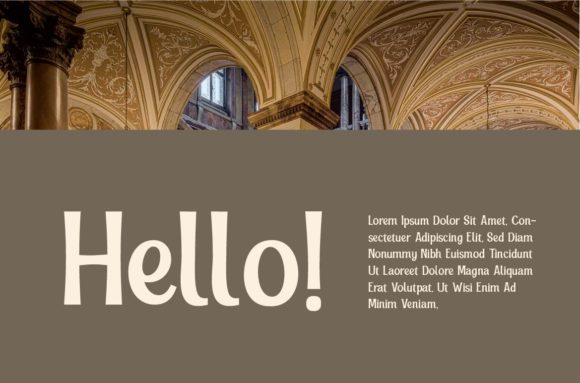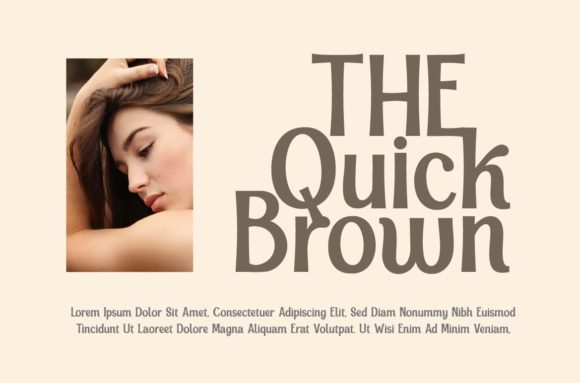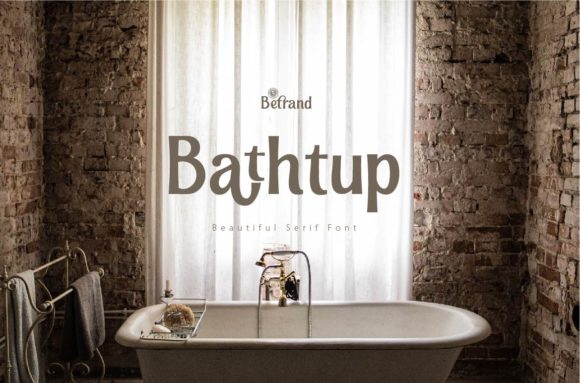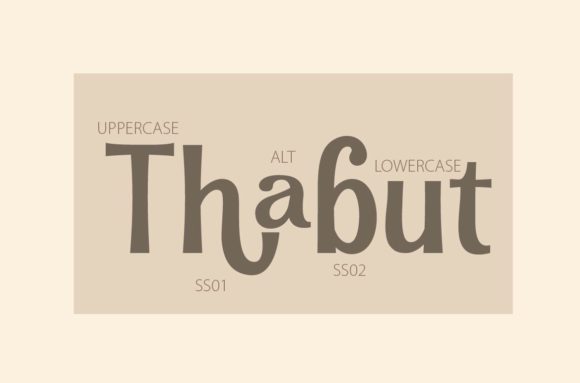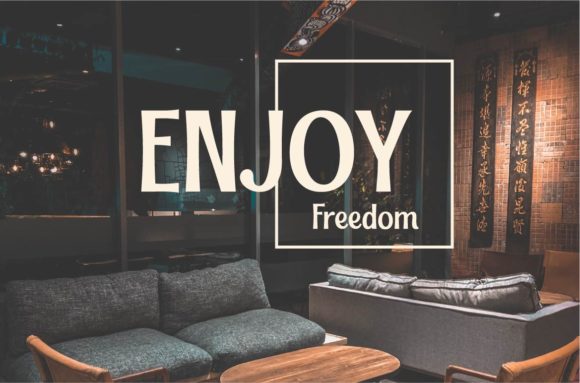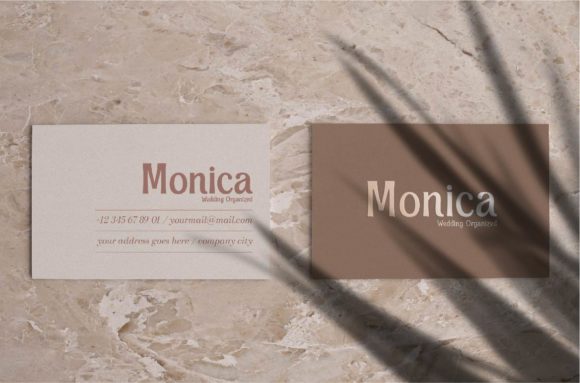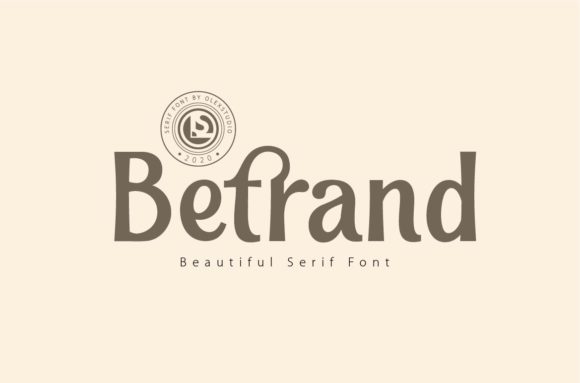
Discover the Elegance of Betrand Font: Elevate Your Designs with Versatility
Are you on the hunt for a font that exudes elegance, sophistication, and uniqueness? Look no further than Betrand Font. This stunning display font is making waves in the design community, and for good reason. Its incredibly versatile style makes it the perfect choice for a wide range of projects, from wedding invitations and stationery to social media posts and more.
The Charm of Betrand Font
Betrand Font is an elegant and unique display font that has captured the hearts of designers and crafters alike. Its charm lies in its ability to add a touch of sophistication to any design. Whether you’re creating a romantic wedding invitation or a stunning piece of stationery, Betrand Font is sure to impress. Its versatility is unmatched, making it a valuable addition to any designer’s toolkit.
Endless Possibilities with Betrand Font
One of the best things about Betrand Font is its incredible versatility. This font can be used in a variety of contexts, including:
- Wedding Invitations: Create gorgeous wedding invitations that set the tone for the big day. Betrand Font’s elegant style is perfect for formal or semi-formal weddings.
- Stationery: Add a touch of sophistication to your stationery with Betrand Font. From letterheads to greeting cards, this font is sure to impress.
- Social Media Posts: Make your social media posts stand out with Betrand Font. Its unique style is sure to grab attention and leave a lasting impression.
- Signage: Use Betrand Font to create stunning signage for events, businesses, or personal projects.
- Branding: Incorporate Betrand Font into your brand identity to add a touch of elegance and sophistication.
Why Designers and Crafters Love Betrand Font
So, why have designers and crafters fallen in love with Betrand Font? Here are just a few reasons:
- Unique Style: Betrand Font’s unique style sets it apart from other fonts on the market. Its elegant and sophisticated design makes it perfect for a wide range of projects.
- Versatility: As mentioned earlier, Betrand Font is incredibly versatile. It can be used in a variety of contexts, making it a valuable addition to any designer’s toolkit.
- Easy to Read: Despite its elegant style, Betrand Font is easy to read, making it perfect for body text or headings.
- High-Quality: Betrand Font is a high-quality font that is designed to deliver exceptional results.
Tips for Using Betrand Font
To get the most out of Betrand Font, here are a few tips to keep in mind:
- Use it Sparingly: Betrand Font is a statement font, so use it sparingly to make a maximum impact.
- Experiment with Colors: Betrand Font looks stunning in a variety of colors, so don’t be afraid to experiment and find the perfect hue for your design.
- Pair it with Other Fonts: Betrand Font pairs well with a variety of other fonts, so don’t be afraid to get creative and find the perfect combination for your design.
| Font Name | Betrand Font |
| Author | Olexstudio |
In conclusion, Betrand Font is a stunning display font that is sure to elevate your designs. Its elegant and unique style makes it perfect for a wide range of projects, from wedding invitations and stationery to social media posts and more. With its incredible versatility, ease of use, and high-quality design, Betrand Font is a valuable addition to any designer’s toolkit. So why wait? Fall in love with Betrand Font today and take your designs to the next level!